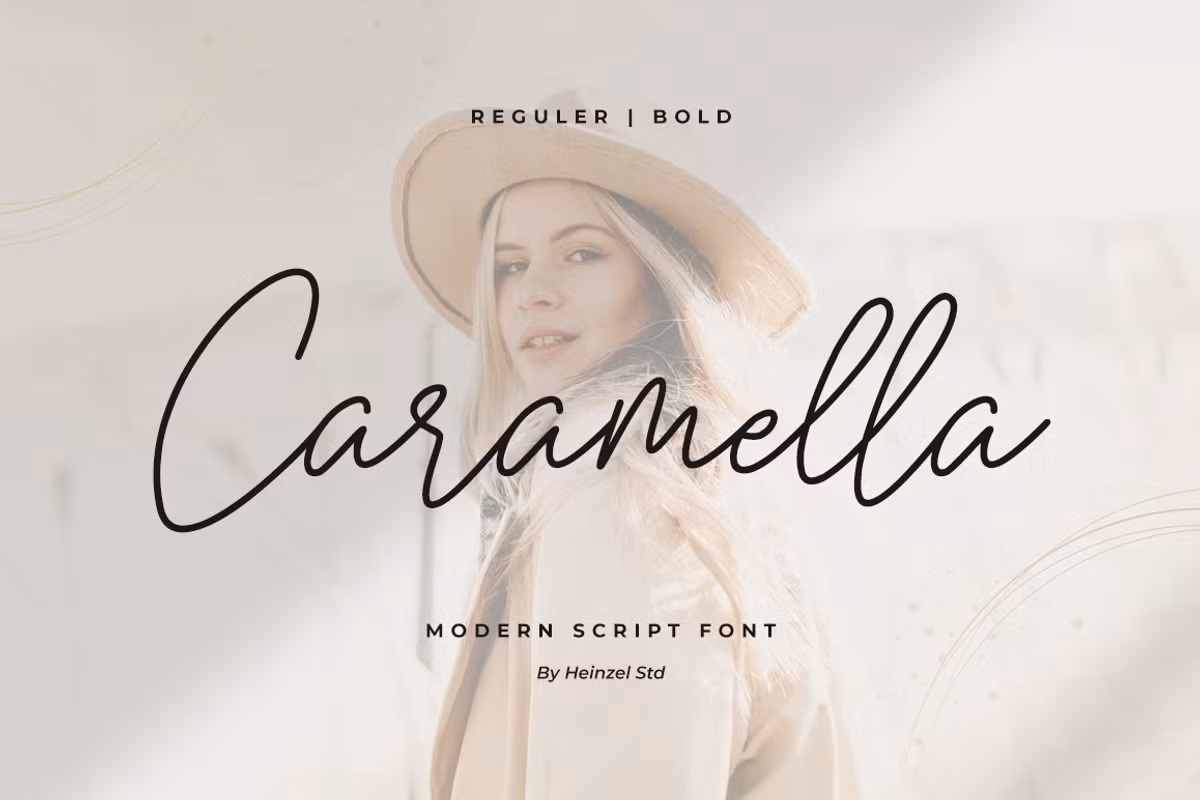
Caramella Modern Script Font Free Download is a stylish and contemporary script typeface that combines the fluidity of handwritten calligraphy with a modern design sensibility. Its elegant curves and sophisticated flourishes make it perfect for a wide range of creative projects, including wedding invitations, branding, logos, social media graphics, and more.
With its smooth, flowing lines, Caramella exudes a sense of luxury and charm, making it an excellent choice for projects that require a personal, yet polished, touch. Whether you're designing for a high-end brand or creating a romantic invitation, Caramella adds beauty and flair to your typography.